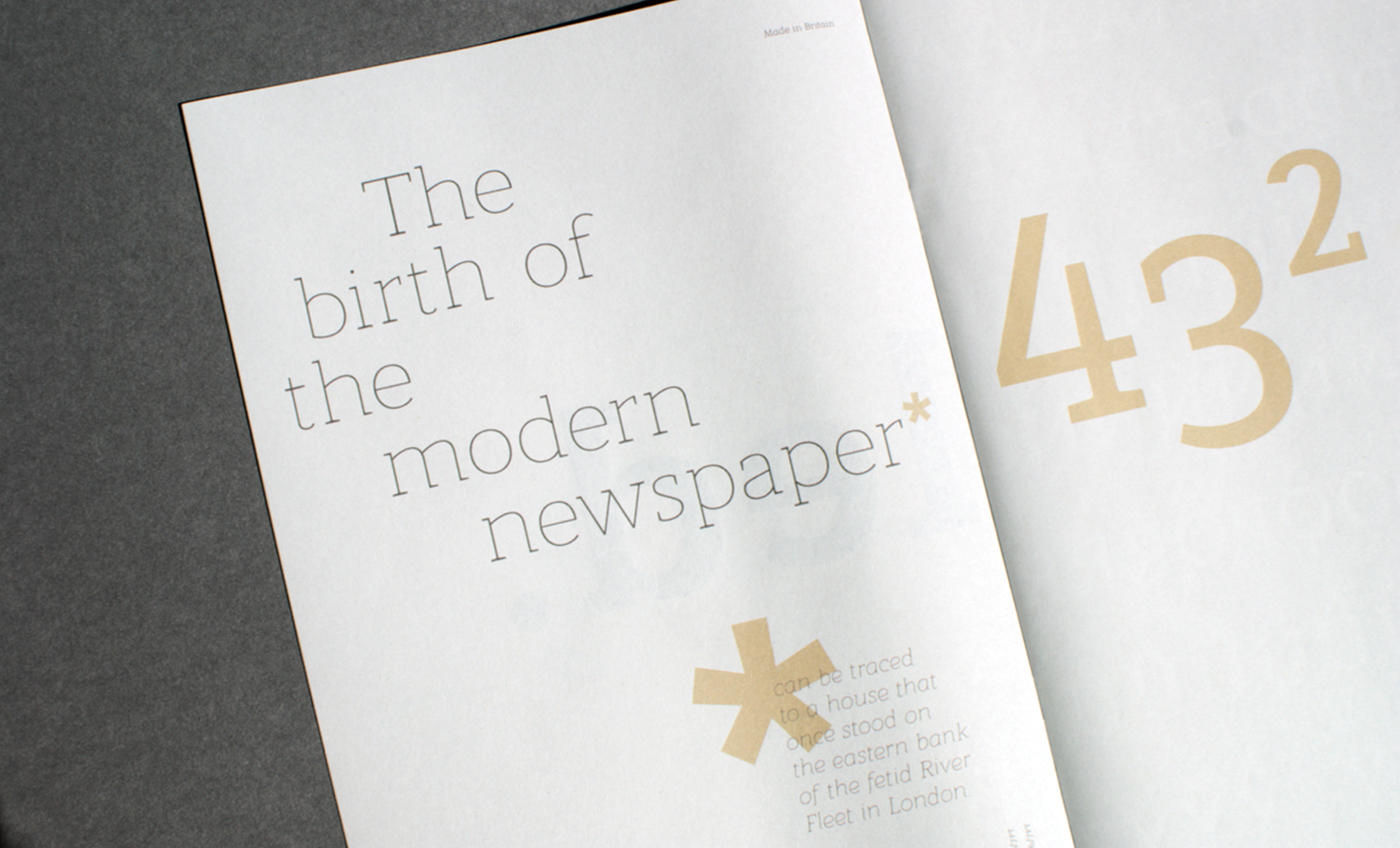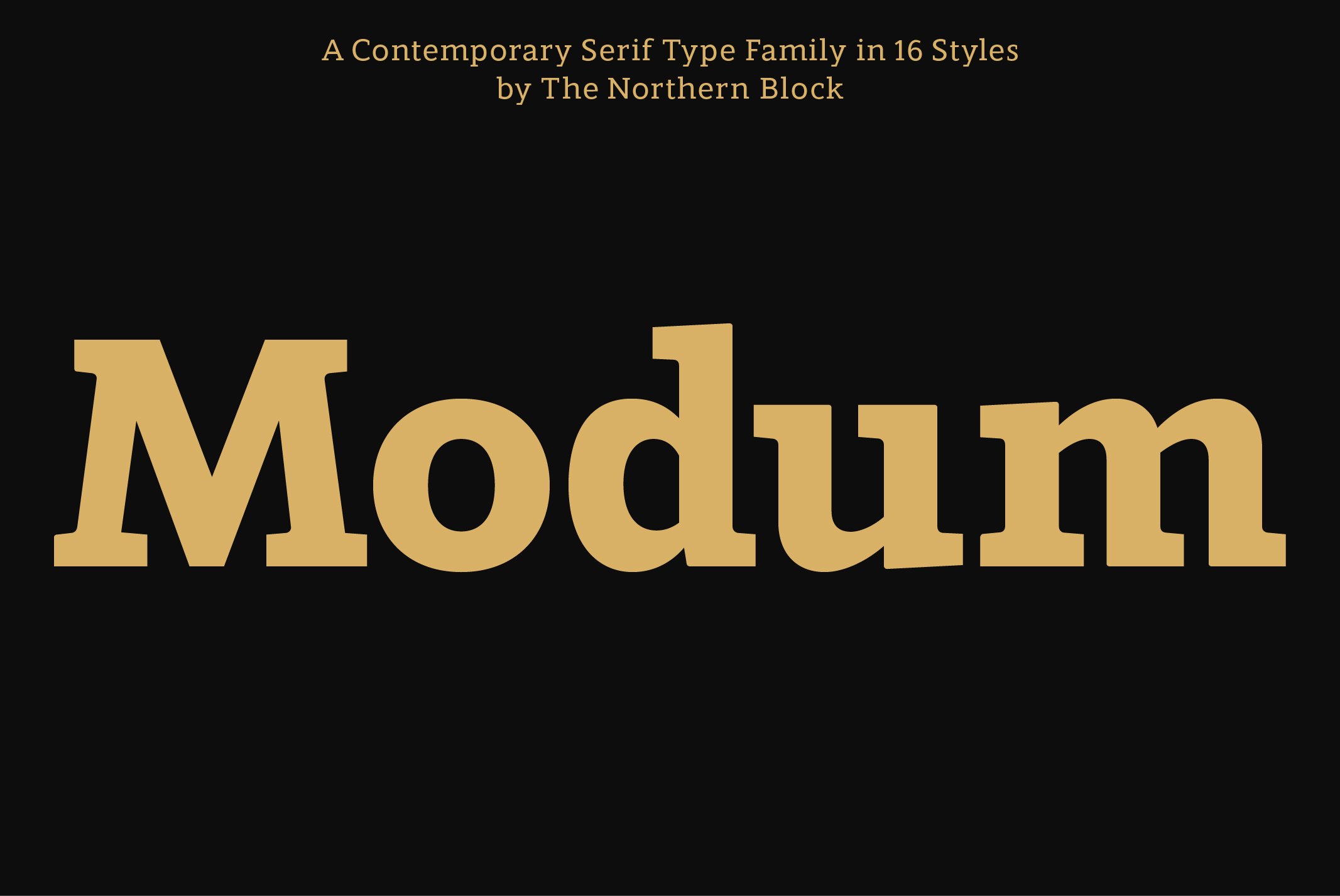
Modum Printed Newspaper Specimen
Modum, a contemporary serif font family, seamlessly merges traditional influences with modern design precision. Its low-contrast structure and a delicate balance of smooth radius details and carefully drawn angles create a crisp, distinctive aesthetic that caters to the demands of digital applications. Crafted for optimal functionality, Modum radiates charm, harmony, and practicality, making it an ideal choice for intricate hierarchical projects like editorials, newspapers, and text-based books. Recognized with a Merit Award (Latin Group) at the Hiii International Typography Design competition in 2015, Modum stands as a stylish and versatile serif font, offering readability and visual appeal tailored for the demands of contemporary design and computer-based work.
Modum has undergone a significant upgrade to version 2.0, introducing enhancements that elevate its typographic capabilities. Notably, the update brings improvements in weight distribution, ensuring a more refined and balanced appearance across various font styles. Additionally, the integration of advanced OpenType features enhances typographic flexibility and functionality, allowing for a richer and more dynamic user experience.
The font includes eight weights with true italics and over 900 characters per style. OpenType features consist of twelve number variations, including inferiors, superiors, fractions, tabular, lining, and old style. It also has alternate lowercase a, e, g and y, small caps and language support covering Western, Southern, Central Europe, and Vietnamese.